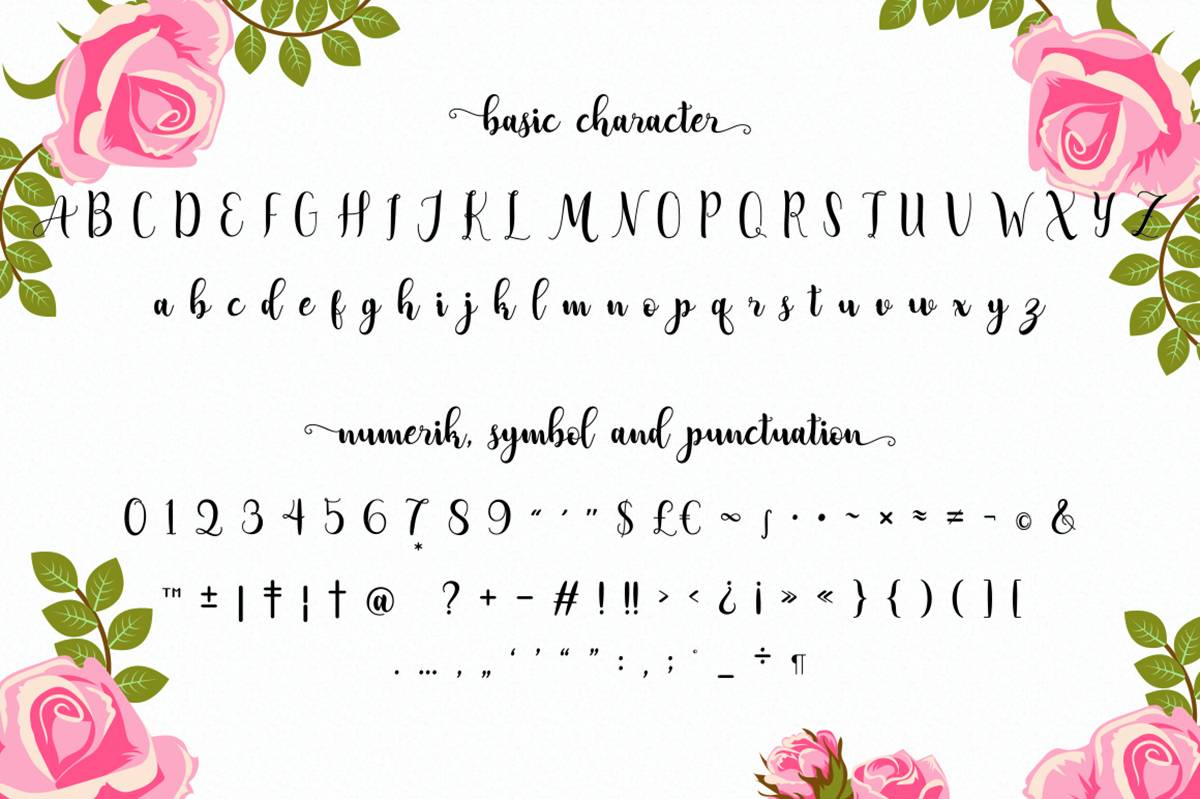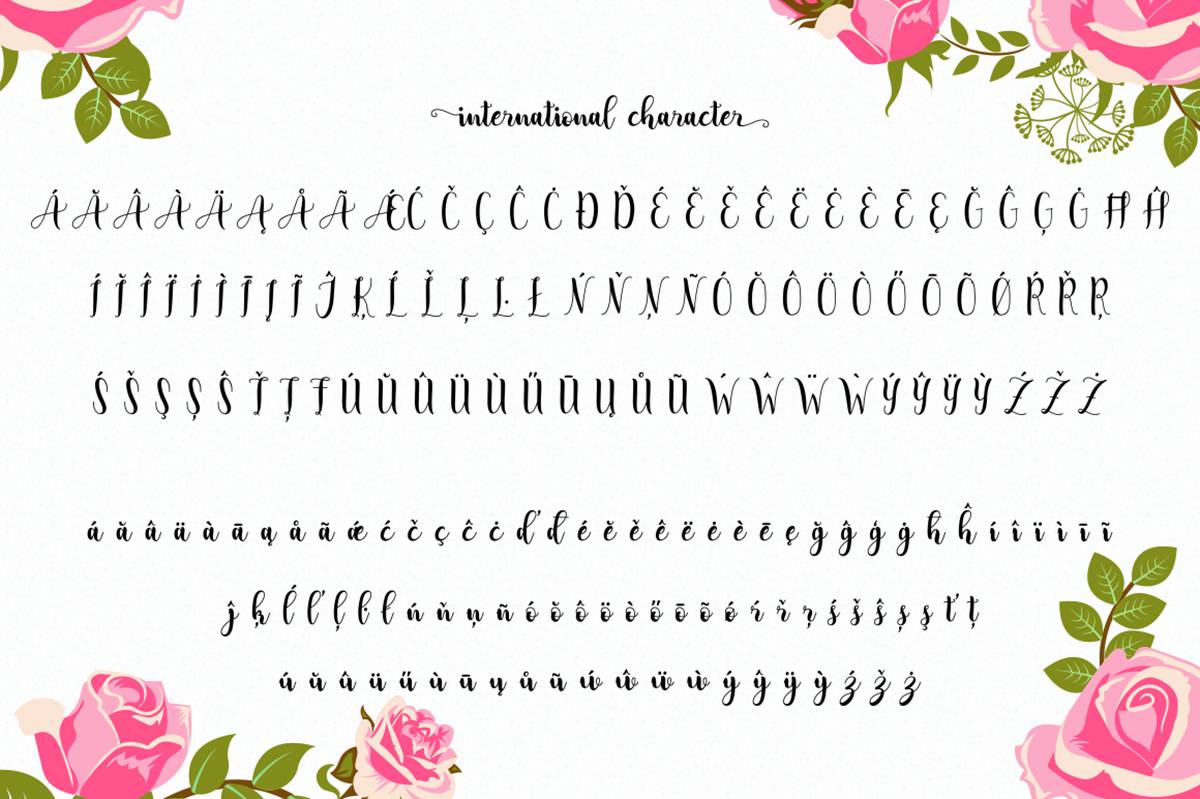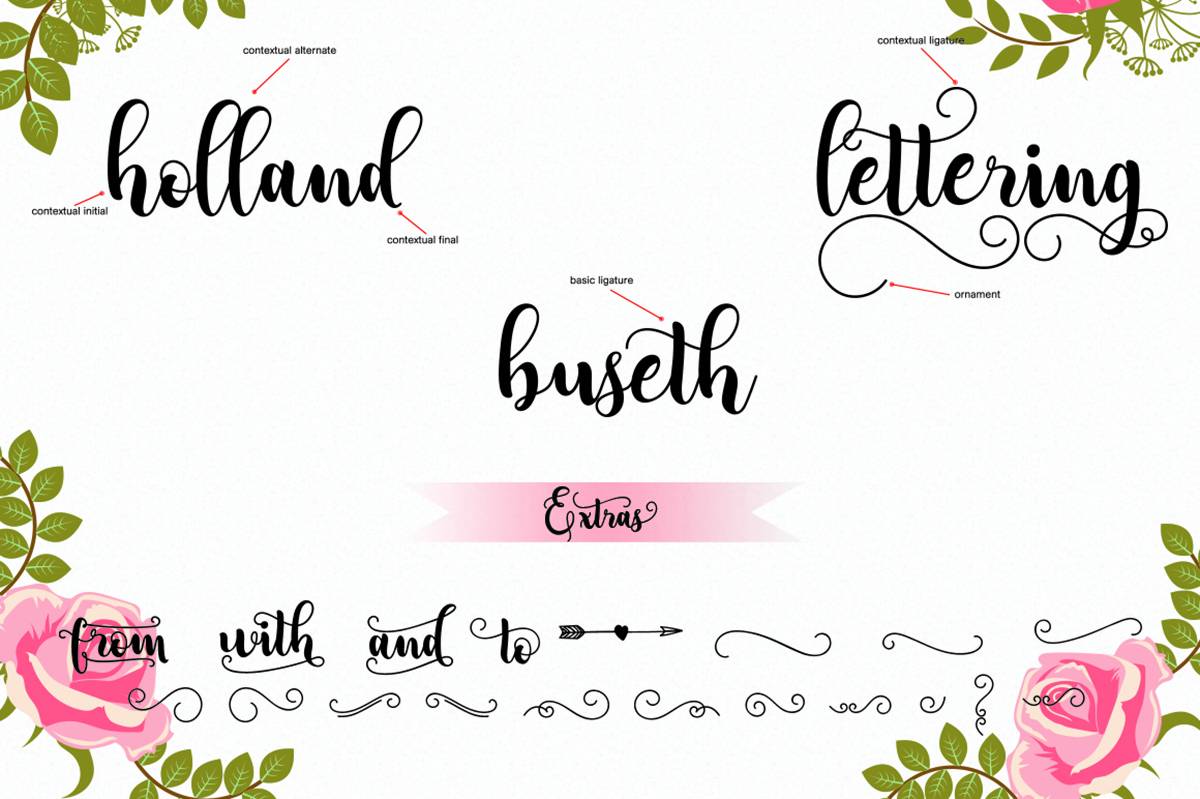
Adreena is an elegant script font featuring graceful, flowing letterforms with a playful yet refined charm. Its slender strokes and delicate swashes create a stylish, handwritten feel, perfect for adding a touch of sophistication and personality to invitations, branding, and decorative headlines. This font is well-suited for designs that seek a blend of modern flair and artistic elegance.
Adreena Font
About Adreena Font